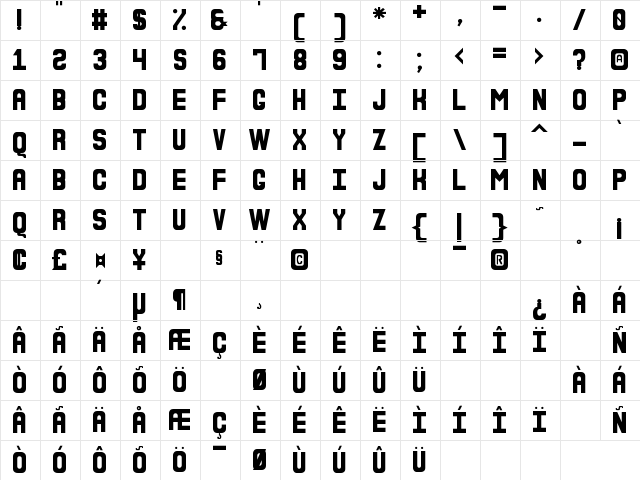
Complete The Inbox St Regular glyph index. Displaying only characters natively supported by The Inbox St Regular font.
The Inbox St is a composed and adaptable typeface that performs quietly and consistently across a wide range of design contexts.